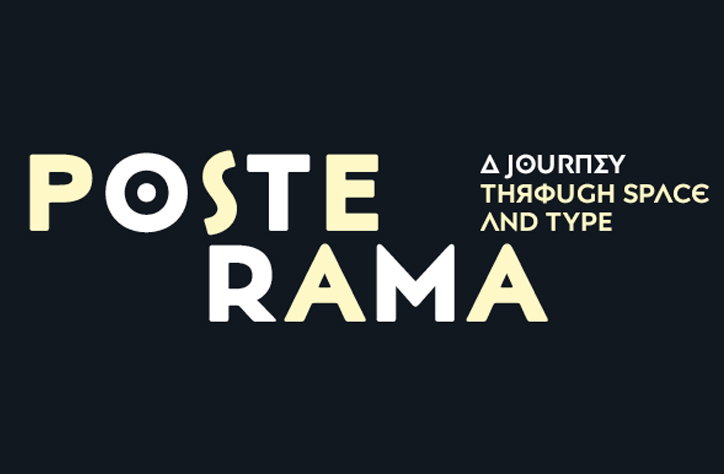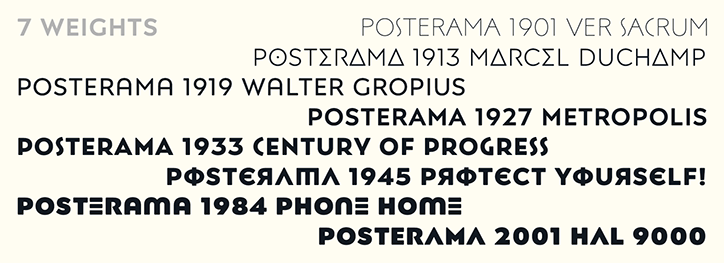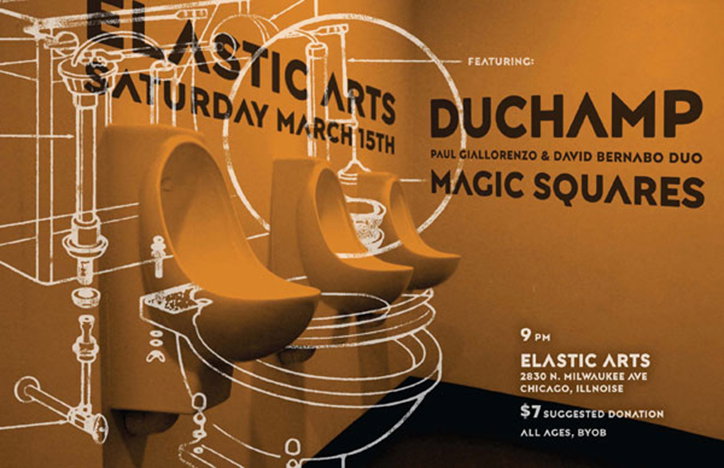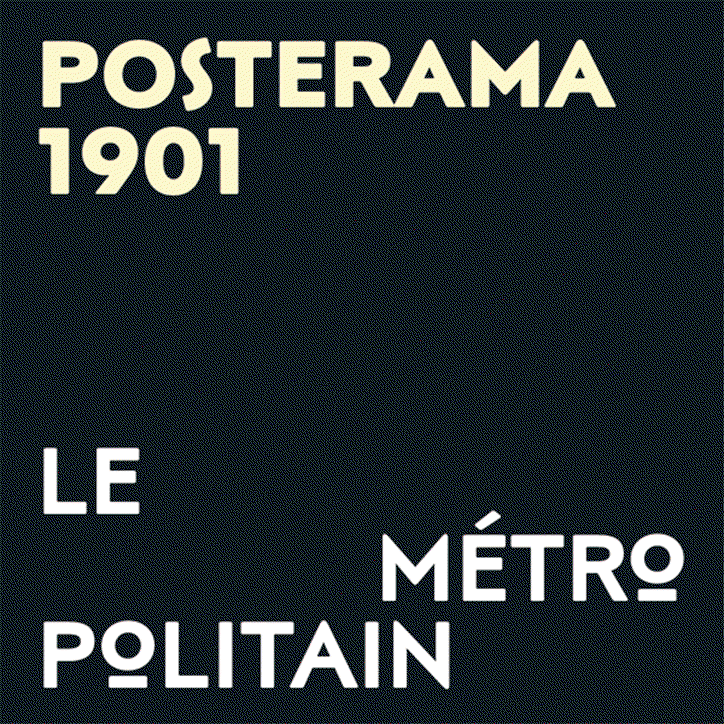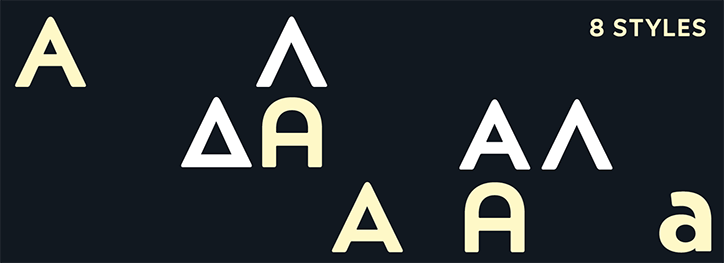
Monotype's Jim Ford designs retro sci-fi typeface Posterama
So many of our visions of the future are, perversely perhaps, shaped by the past. Science fiction films which seem almost impossibly futuristic when released become, years later, classics that are often quaint in their portrayal of what’s in store.
Perpetual sci-fi favorite Eurostile is now so ubiquitous that it’s become shorthand for the future, and likely makes an appearance in any science fiction film you can name. As Dave Addey, senior writer at Apple, observes, “Need to write a message on your rocket, lunar base or rover? You know the font to use”.
Fellow geometric sans serif Futura – reportedly Stanley Kubrick’s favorite font – has also played a role, with variations of it appearing on ship equipment in 2001: A Space Odyssey.
Jim Ford’s Posterama typeface joins this long tradition of geometric sans serifs, putting classic faces such as Gill Sans and Futura through a design time warp. The end result is what Jim calls “the typeface of the future… only yesterday”, carrying a retro-futuristic charm as well as a nod back to some of the most influential periods in design history.
Divided into eight different styles – organised by era – Posterama is a wry reminder of the many different ways designers have tried to anticipate the future, from the past.
Jim, who also works as an artist and poster designer for several bands, originally made the first Posterama design as a seven-letter logo. From the off the letters were created with outer space in mind, with the bar of the A removed in reference to the old NASA logo.
The designer used these initial forms as a guide for expanding the logo into a design system, using posters from the early 20th century as a guide and researching what designers were doing with geometric typefaces at the time.
“There are many different variations, and a lot of it’s connected with Art Deco and that genre of style,” says Jim.
“I think it has to do with art and technology, and the industrial boom,” he adds. “Up to the 1920s people were influenced by machines and new technologies, and they were using them as expressive tools – in art, type, or design.”
The soft rounded corners of the letters are designed with old prints in mind, and as a way of introducing a softer, more analogue, feel. The shape of each of Posterama’s styles also reflects on trends in architecture and furniture design of the time.
Jim worked with two designers to develop the typeface, bringing along a wealth of ideas for alternates. With Posterama becoming increasingly hard to manage, the design team started developing ideas on how to organise it. While most typefaces are arranged into weights, Jim created a method that would reflect his own interest in history.
“My idea was that the years would be ways of identifying different packages,” explains Jim. “We’re used to seeing typefaces with lots of OpenType features, but the idea with Posterama was to make it easier to change the whole typeface and have a completely different look.”
Each of the typeface’s eight styles refers back to a different moment in history, from Paul Renner’s influential Futura design to classic poster type of the 1980s. Posterama 1901, with its extra slender S letters and underlined O nods to Art Nouveau, while the more jagged Posterama 1913 takes a trip back to Cubism and the work of artists such as Picasso and Duchamp.
Classic Bauhaus can be seen in Posterama 1919 – the year the school was founded – with its rounded A, while Posterama 1927 pays its respects to Paul Renner. Jim’s own favourite style, Posterama 1933, has a classic Art Deco character that pairs deliciously sinuous curves with a distinctively drop-waisted E. The designer recommends it be used with Posterama 1901 – with its Art Nouveau influences echoing Art Deco’s roots in the same style.
Other styles offer plenty for literature and pop culture enthusiasts. For those looking to borrow or subvert the visual language of political posters, Posterama 1945 contains a few furtively planted Cyrillic characters, while Posterama 1984 directly references George Orwell’s 1984. It draws heavily on the kinds of modular fonts being created to promote dystopian sci fi such as Blade Runner and Videodrome in the 80s. Kubrick’s hugely influential 2001: A Space Odyssey formed the basis for Posterama 2001, with its classic crossbar-less A taken straight from the pages of NASA’s design guidelines.
Aside from its unusual system of organisation, Jim promises Posterama “holds up to a lot of abuse”.
“I like that it gives a printed feel to digital media, and makes it more soft and familiar,” he says. “I think the expectation with new typefaces is that they’re perfect all the time – not to say that Posterama isn’t, but it has a little bit more softness and charm to it.”